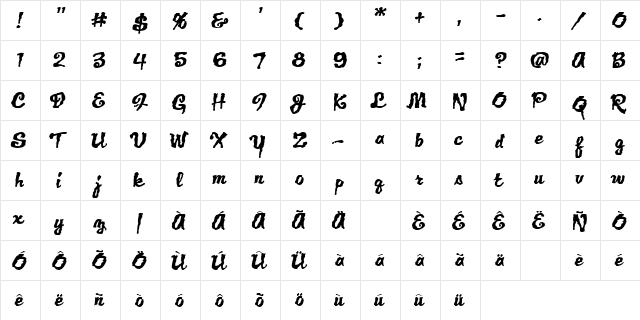
JackLantern BB Regular
Design Context for JackLantern BB Typeface
JackLantern BB is a composed and adaptable typeface that performs quietly and consistently across a wide range of design contexts.